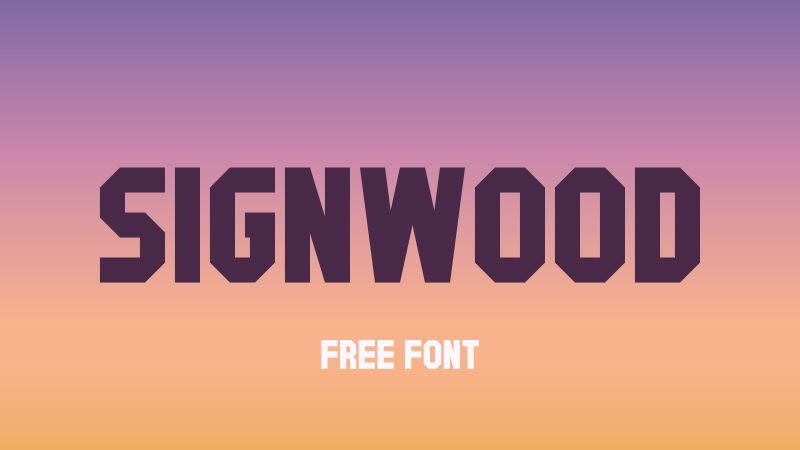
Signwood Italic, a standout typeface from the Signwood family, is the brainchild of designer GGBotNet. This display font captures the essence of old school charm with its bold, italicized character set that seems to echo the signs and marquees of a bygone era. The font's thick lines and slanted posture make it an eye-catching choice for creatives seeking to infuse their projects with a touch of nostalgia.
The striking contrast and sharp edges present in Signwood Italic create an aesthetic appeal that can command attention on posters, book covers, and branding materials. Its bold weight ensures high readability even from a distance, making it ideal for signage or any application where immediate impact is desired.
Whether you're designing for retro-themed events or looking to add character to modern compositions, Signwood Italic offers versatility wrapped in a stylish package. Embrace this font's potential to bring your creative endeavors to life with an unmistakable flair.